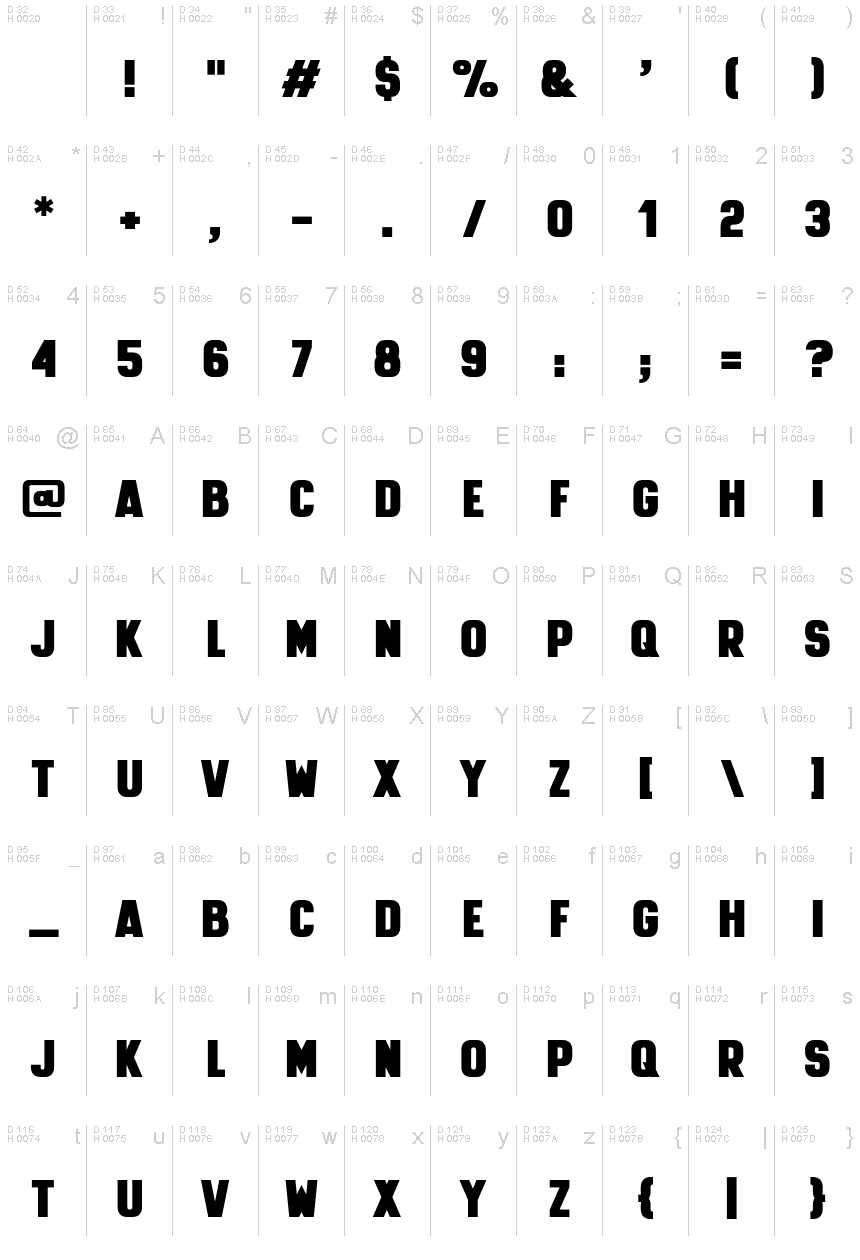
HyperSuperRegular
HyperSuper, designed by Bisou, is a stunning sans serif font that exudes confidence and modernity. With its extra-bold weight and condensed width, this font demands attention and adds a touch of edginess to any project.
Perfect for logo designs that want to make a bold statement, or for creating eye-catching headlines that command the viewer's attention. HyperSuper is also well-suited for magazine layouts, packaging designs, and website headers where space is limited but impact is essential.
Embrace the power of HyperSuper and make your designs stand out from the crowd.